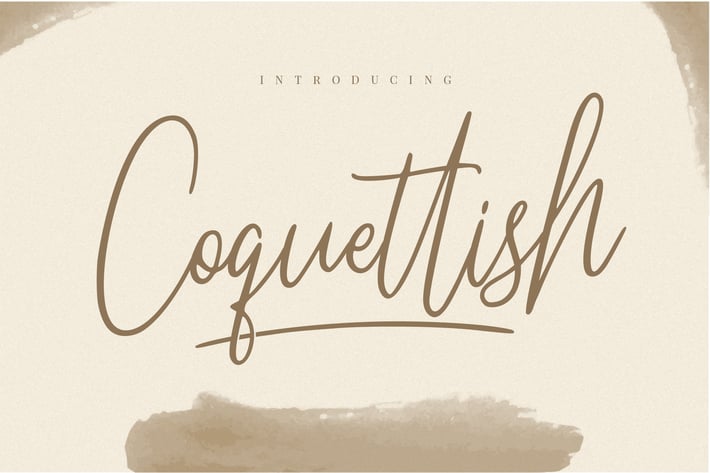
Coquettish Handwritten Script Font
Are you looking for a simple and elegant handwriting font? We can help! Try to download our Coquettish font. The font is suitable to use for all casual purpose. Try to use it on Wedding invitation, greeting card, poster, postcard, photography, branding, editorial, and signature to see the best of it :)
Basic Latin A-Z and a-z
Swash